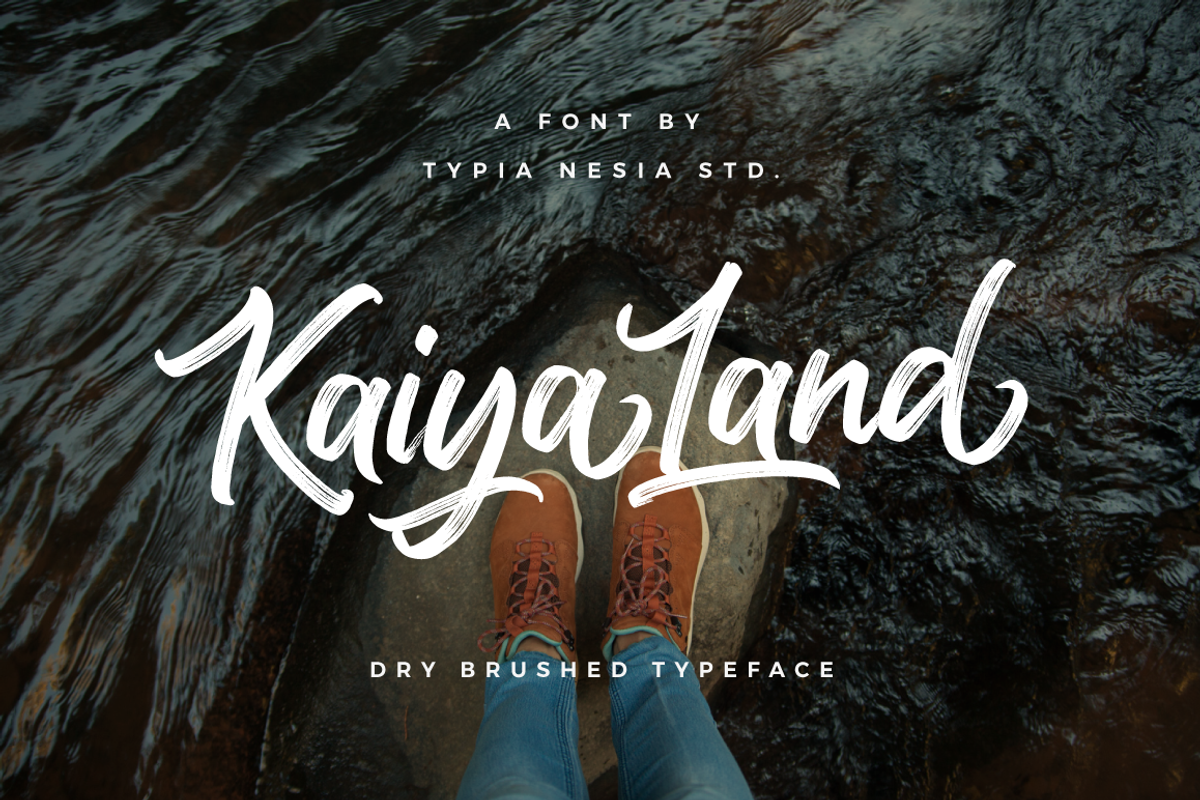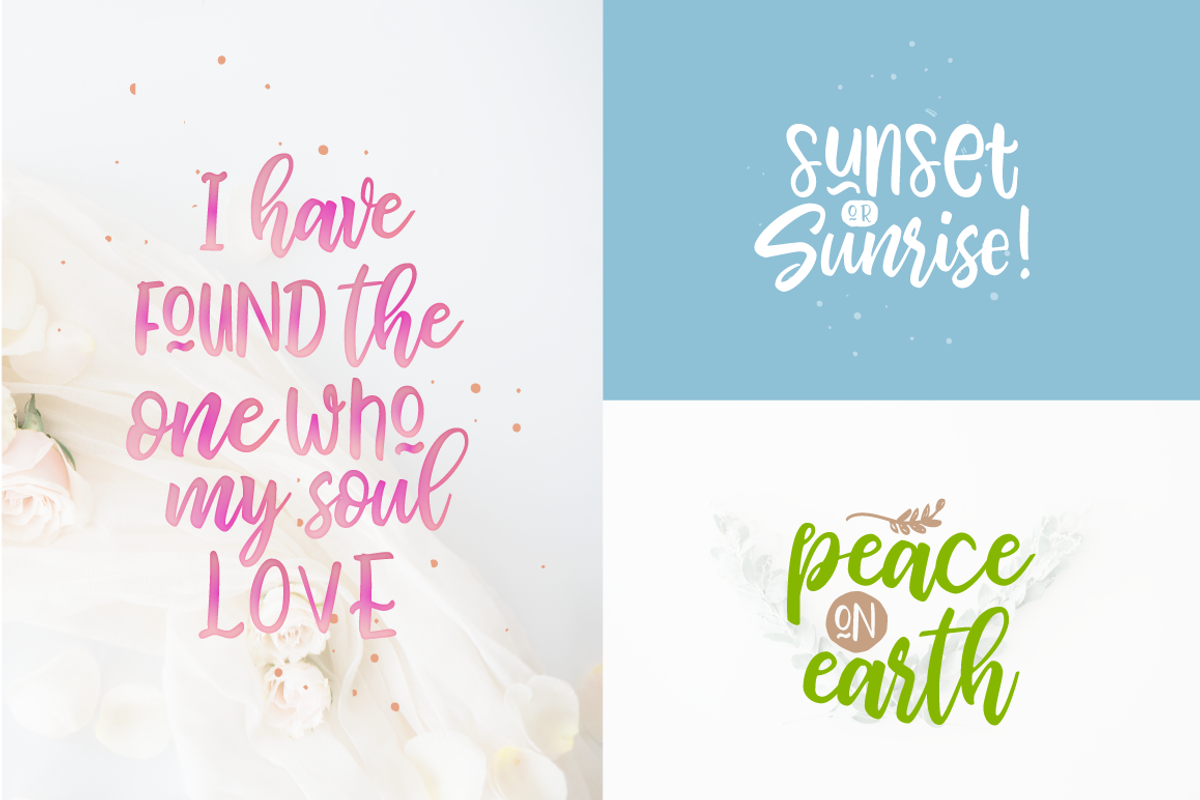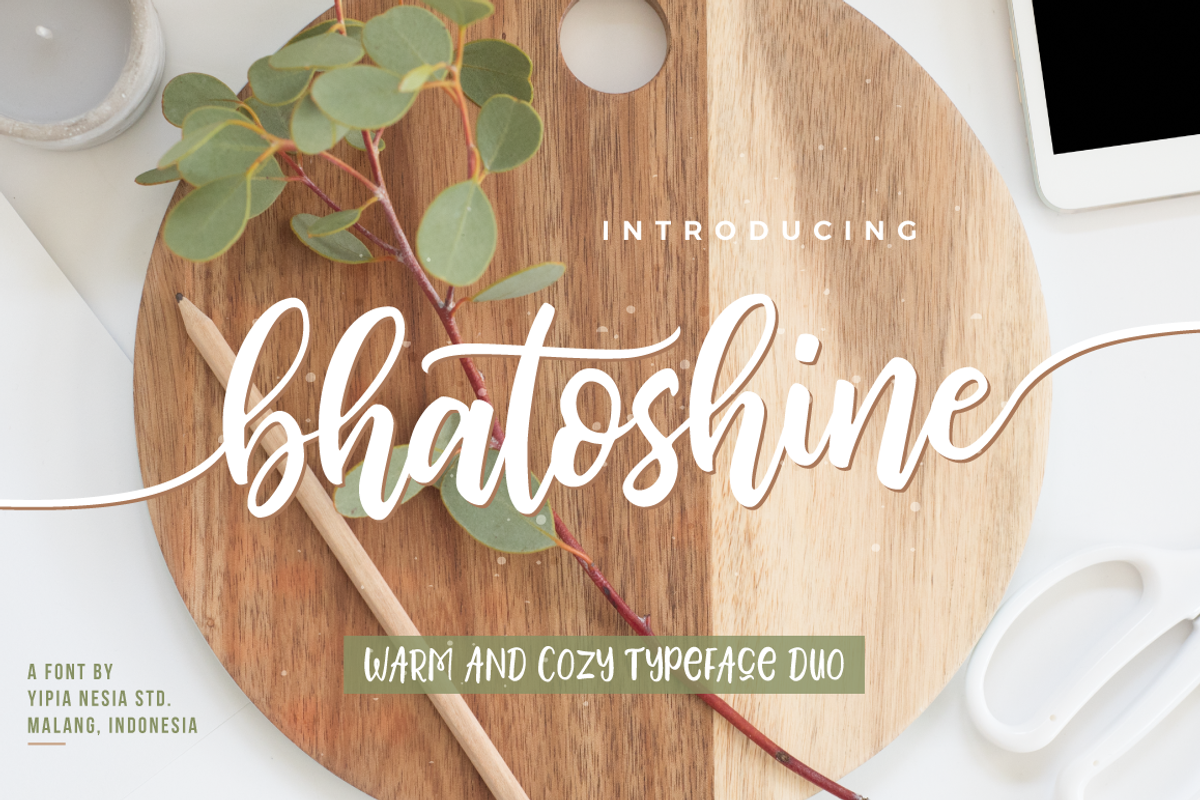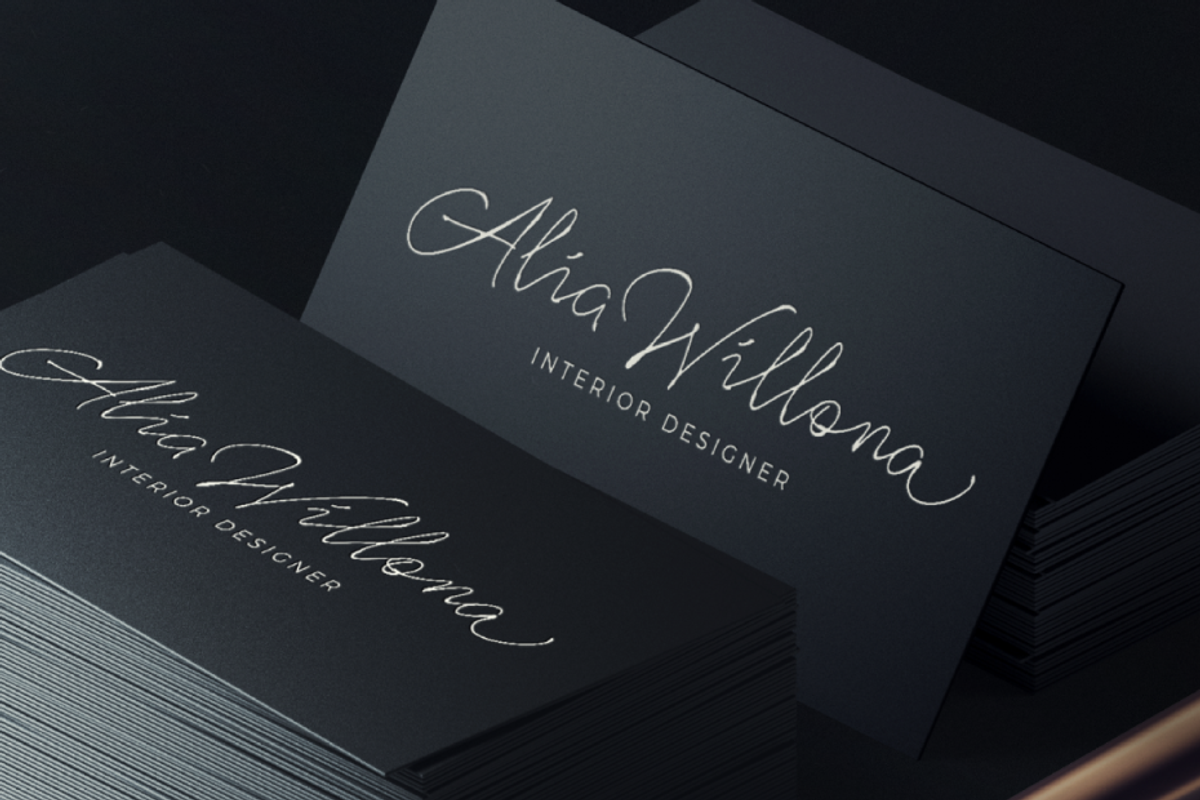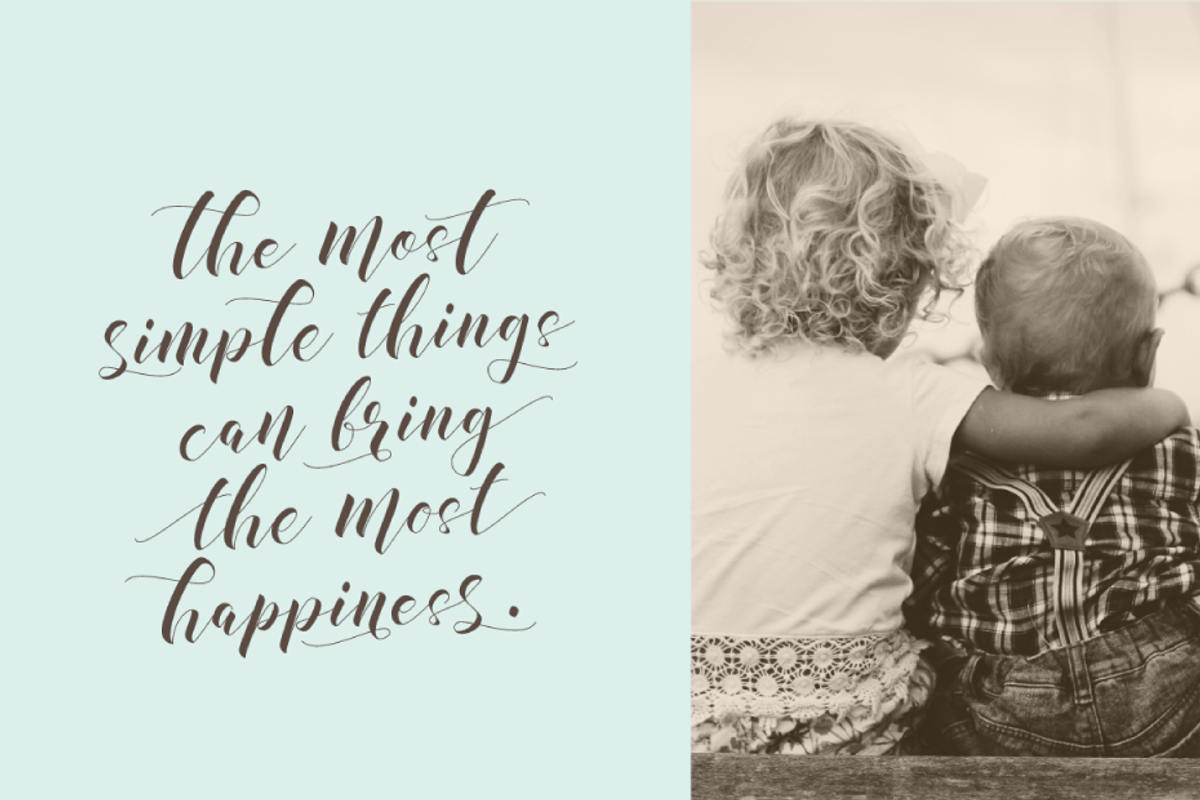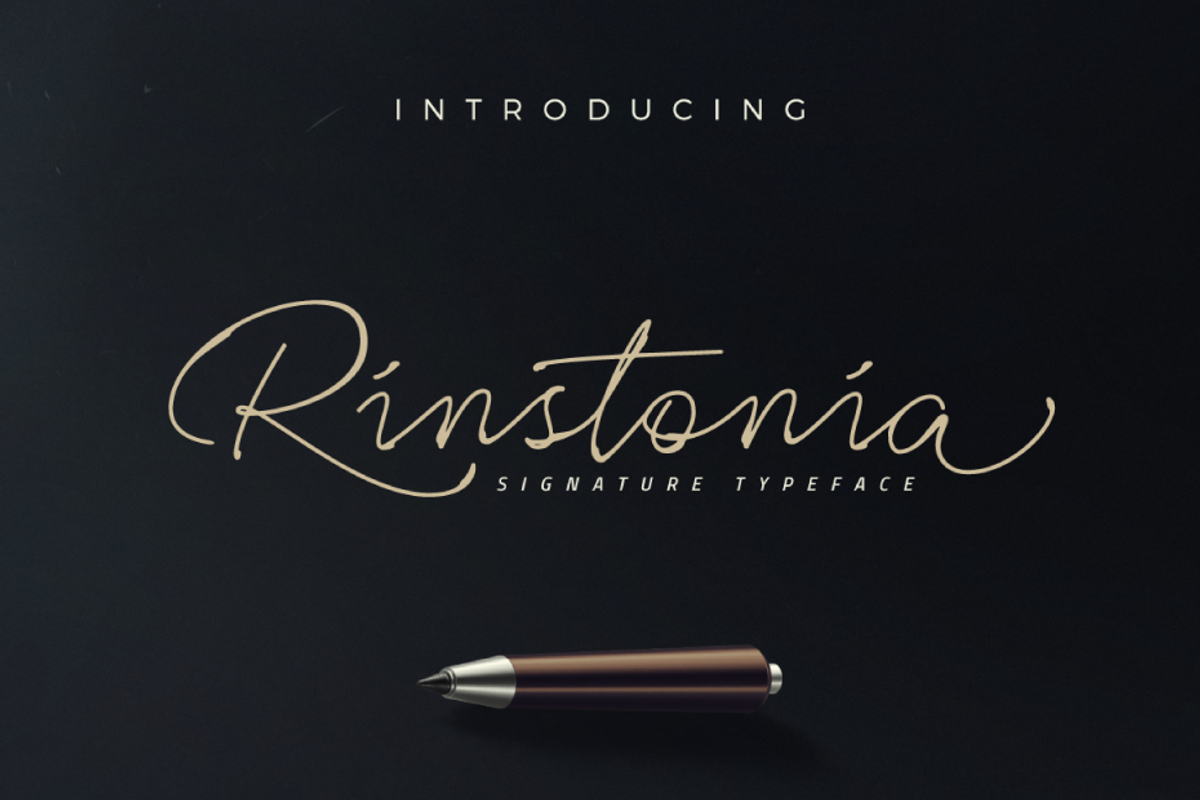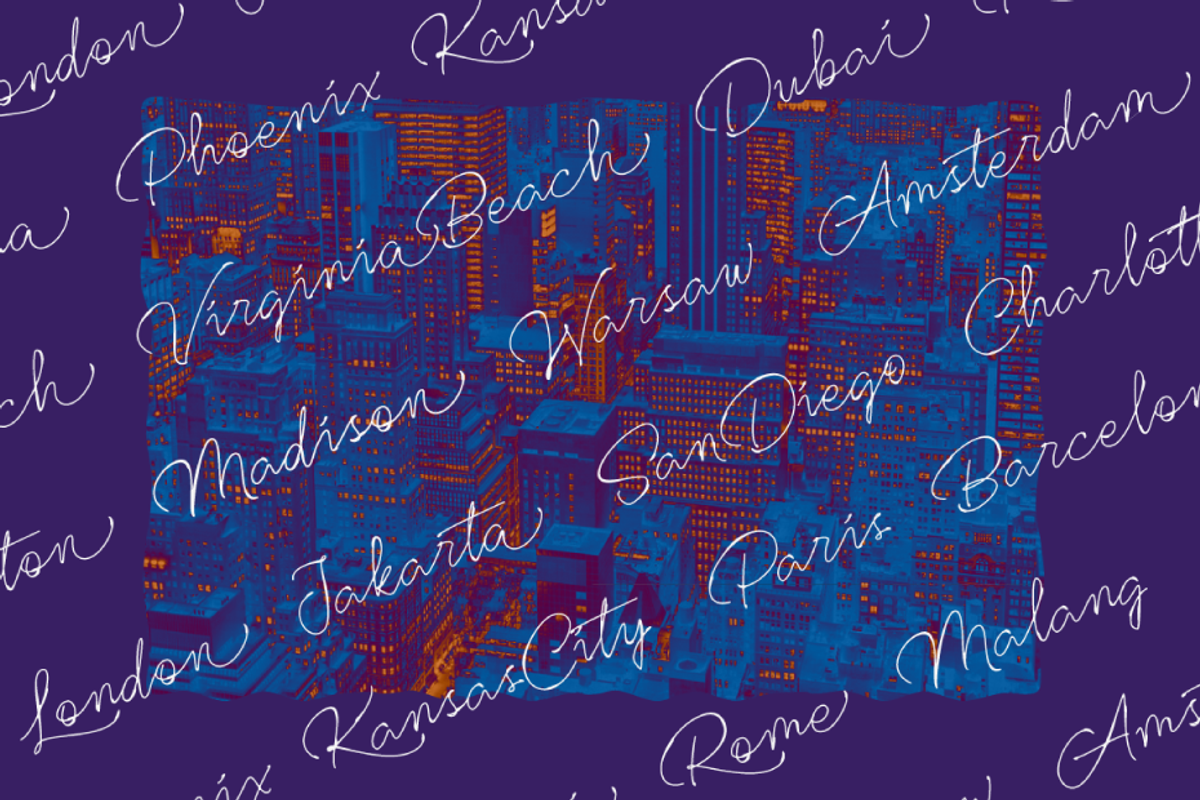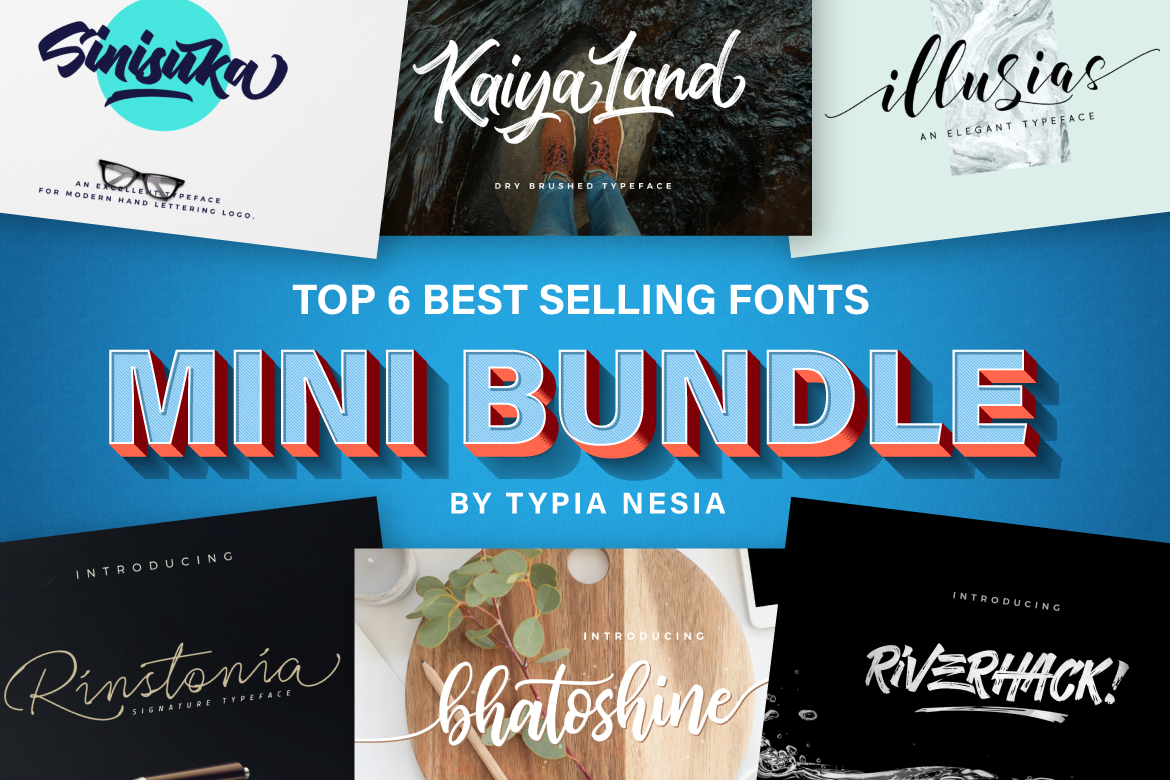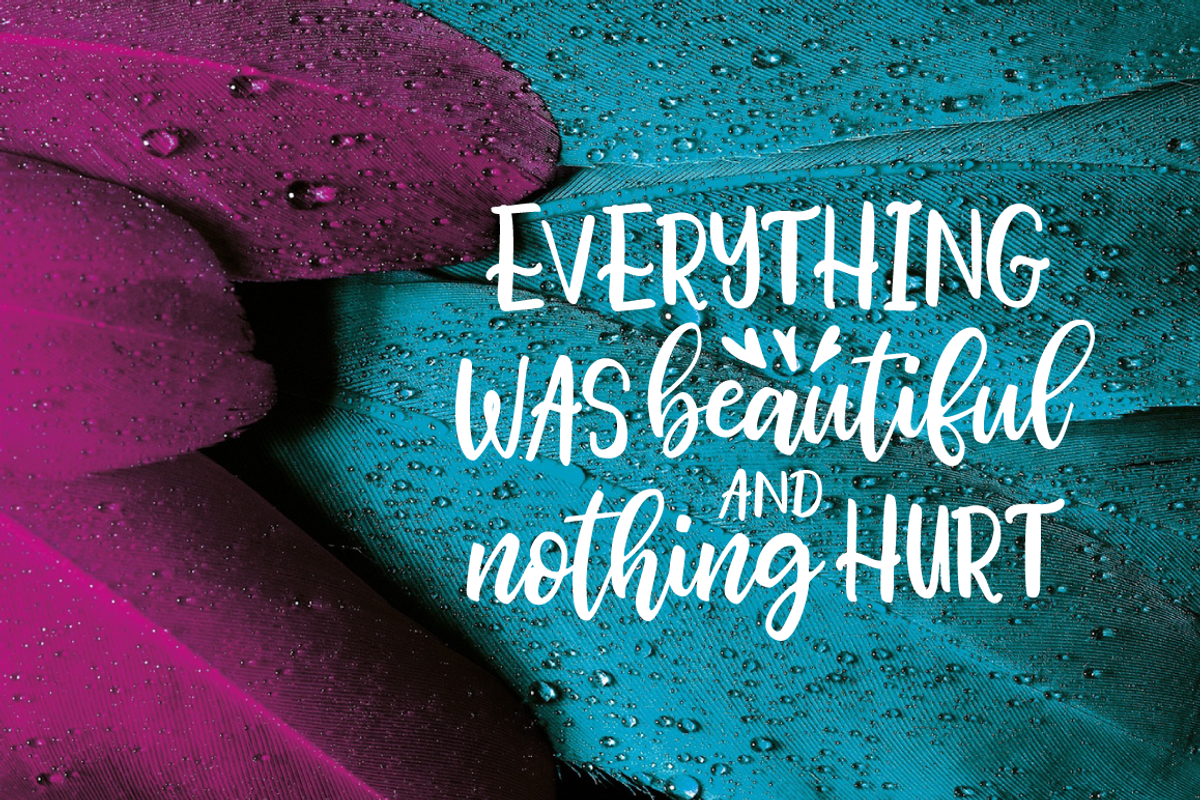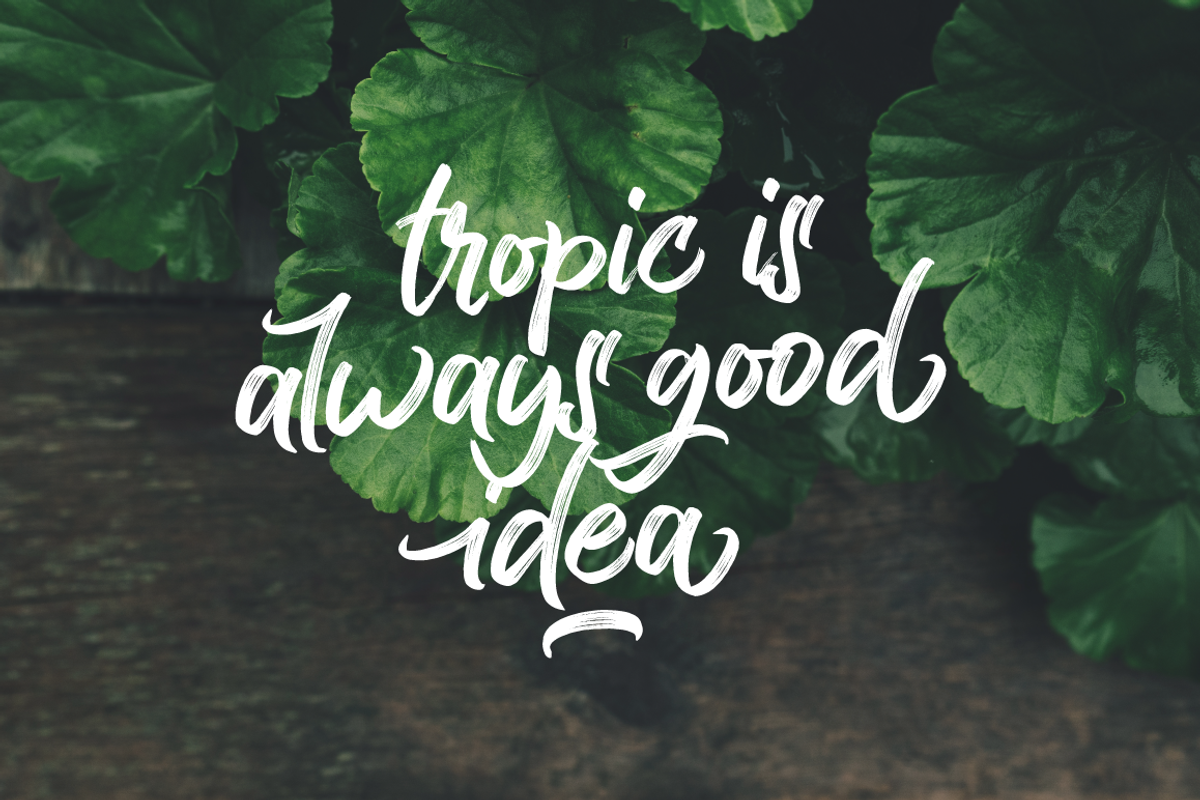
Mini Font Bundle - Typia Nesia
MINI BUNDLE. Top 6 Best Seller Fonts by Typia Nesia Std.
- Riverhack Brush Font : https://creativemarket.com/neSia/719270-Riverhack-Brush
- Sinisuka Logo Font : https://creativemarket.com/neSia/585512-Sinisuka-Logo-Font
- Illusias Calligraphy Font : https://creativemarket.com/neSia/645216-illusias-elegant-font
- Bhatoshine Cursive Font : https://creativemarket.com/neSia/1103994-Bhatoshine-Fancy-Font-Duo
- Kaiyaland Brush Script Font : https://creativemarket.com/neSia/1228711-KaiyaLand-Brush
- Rinstonia Signature Script Font : https://creativemarket.com/neSia/982166-Rinstonia-Signature